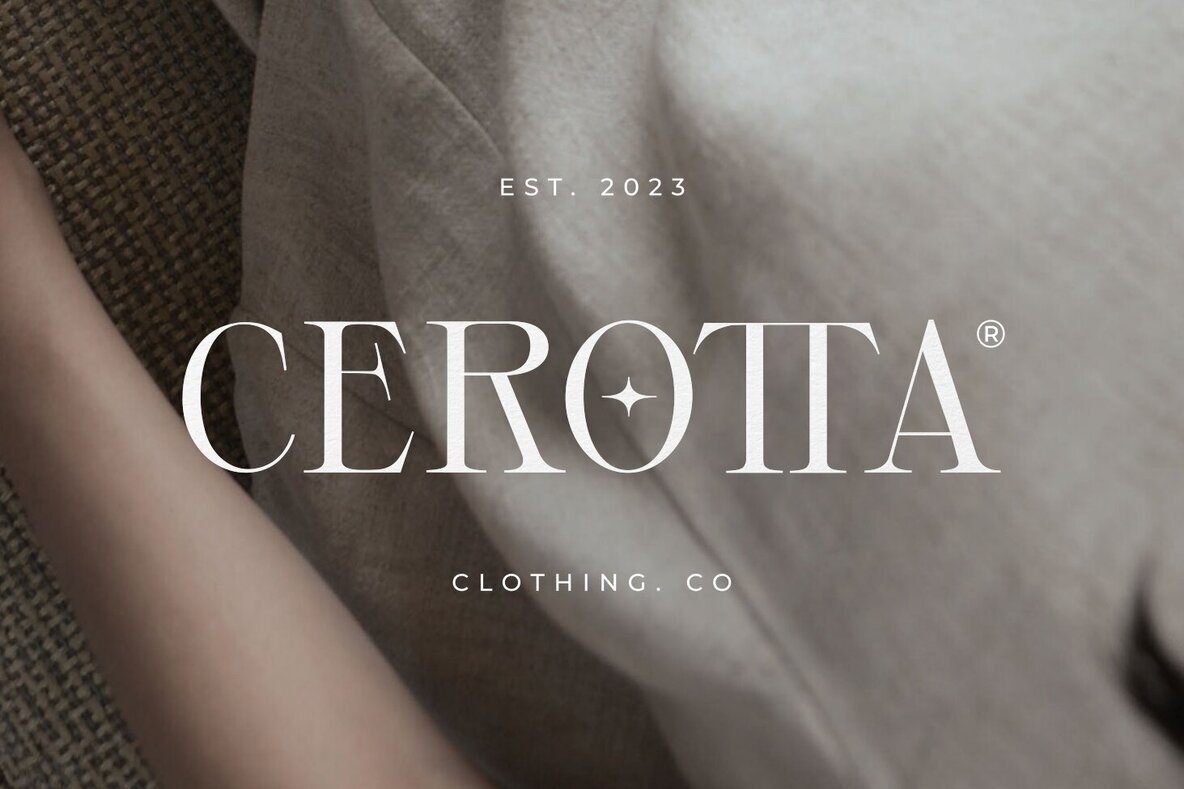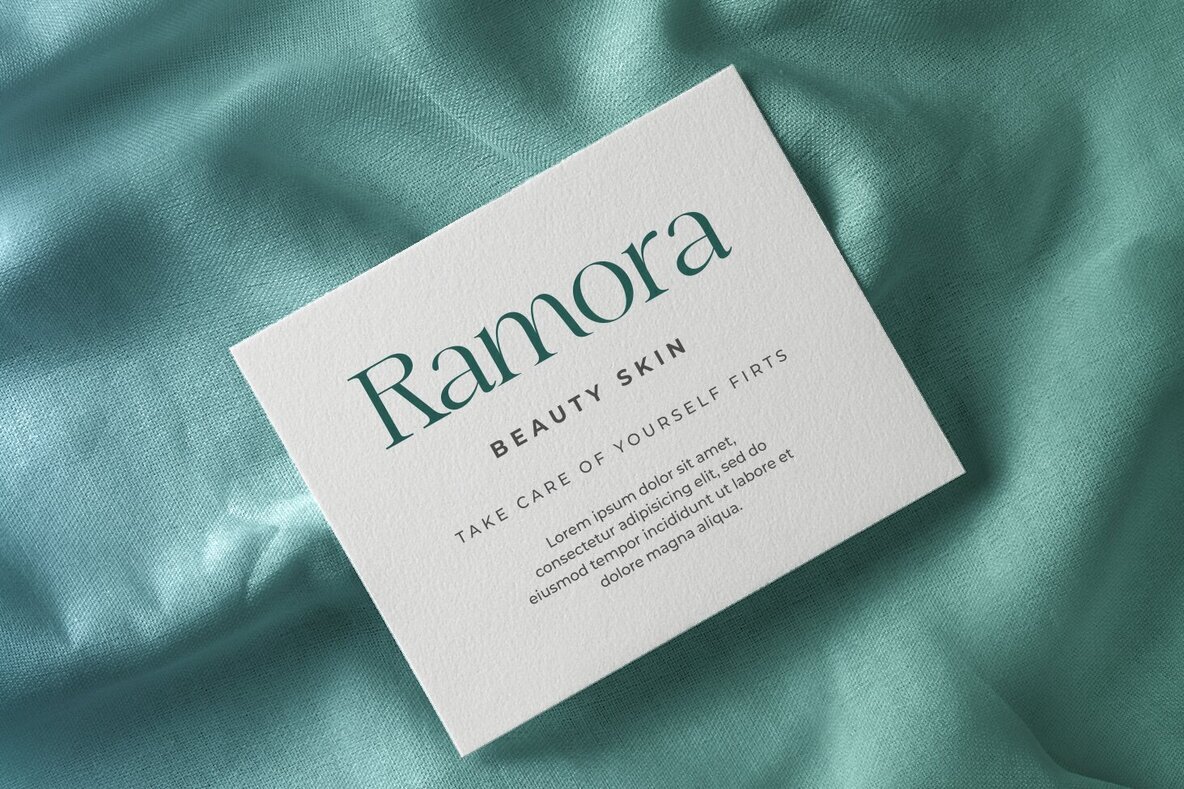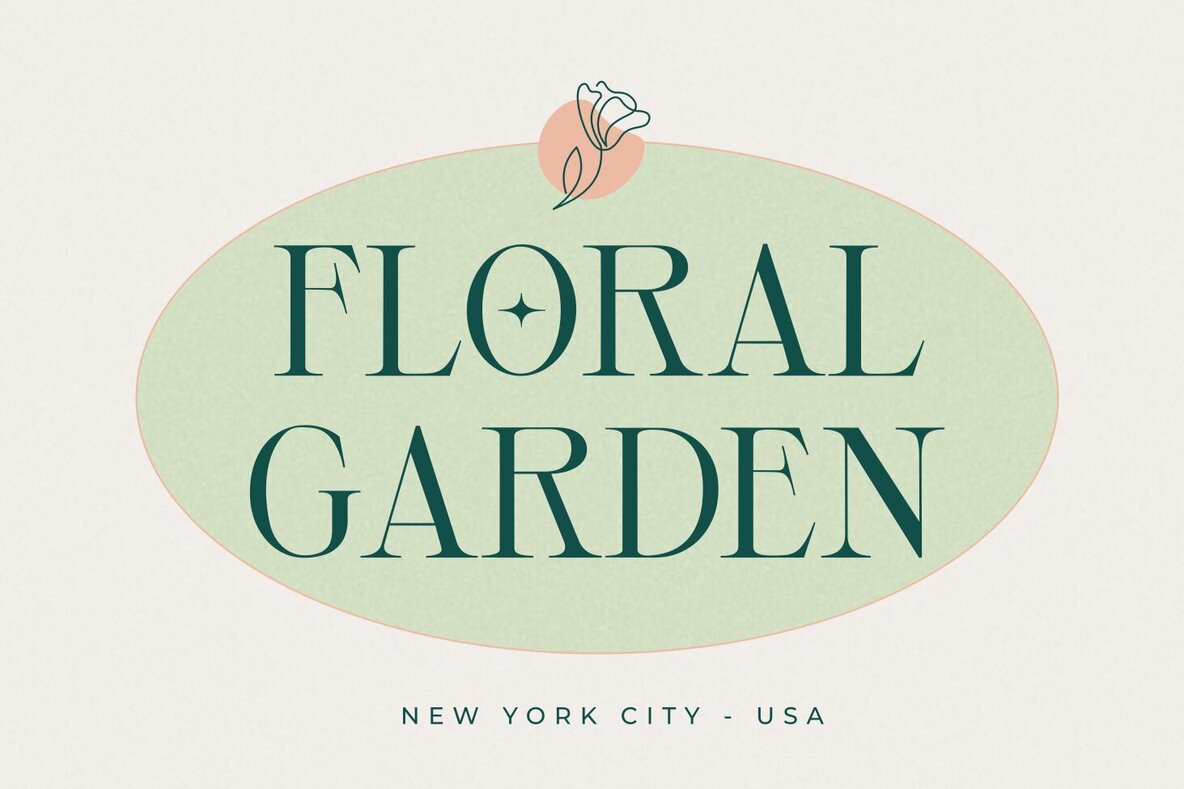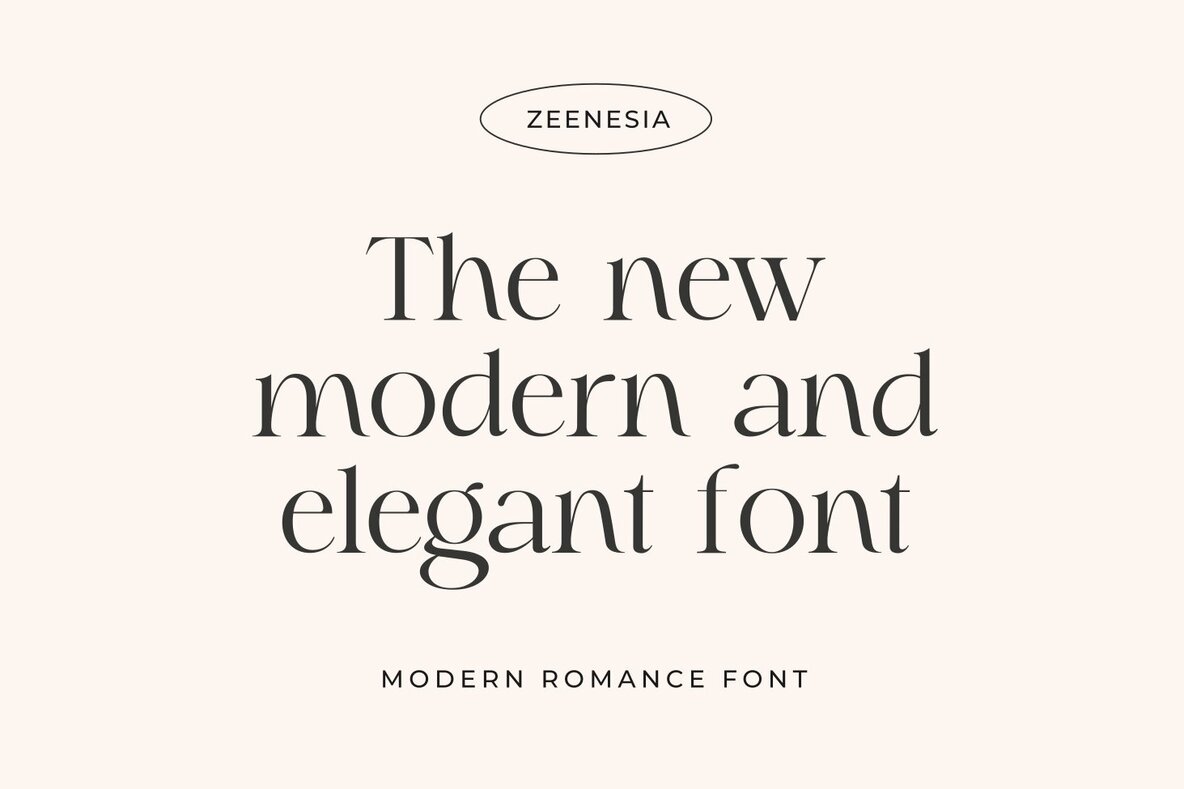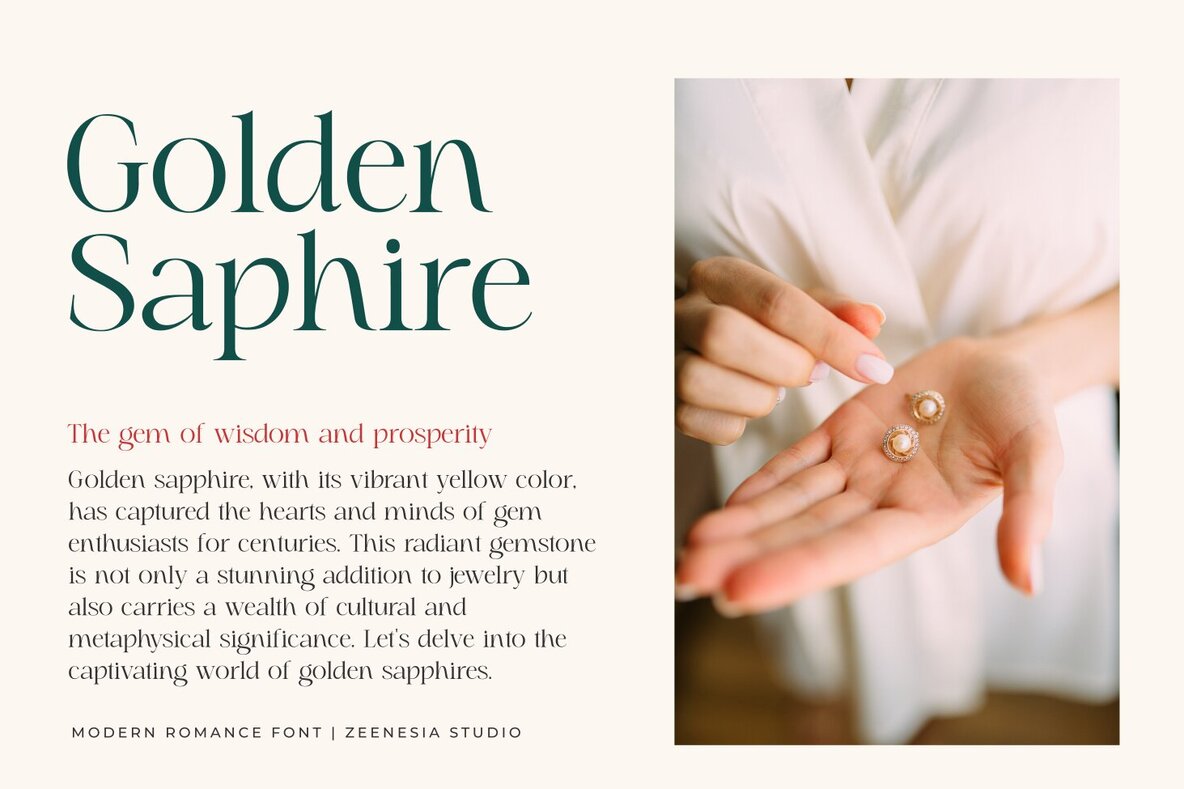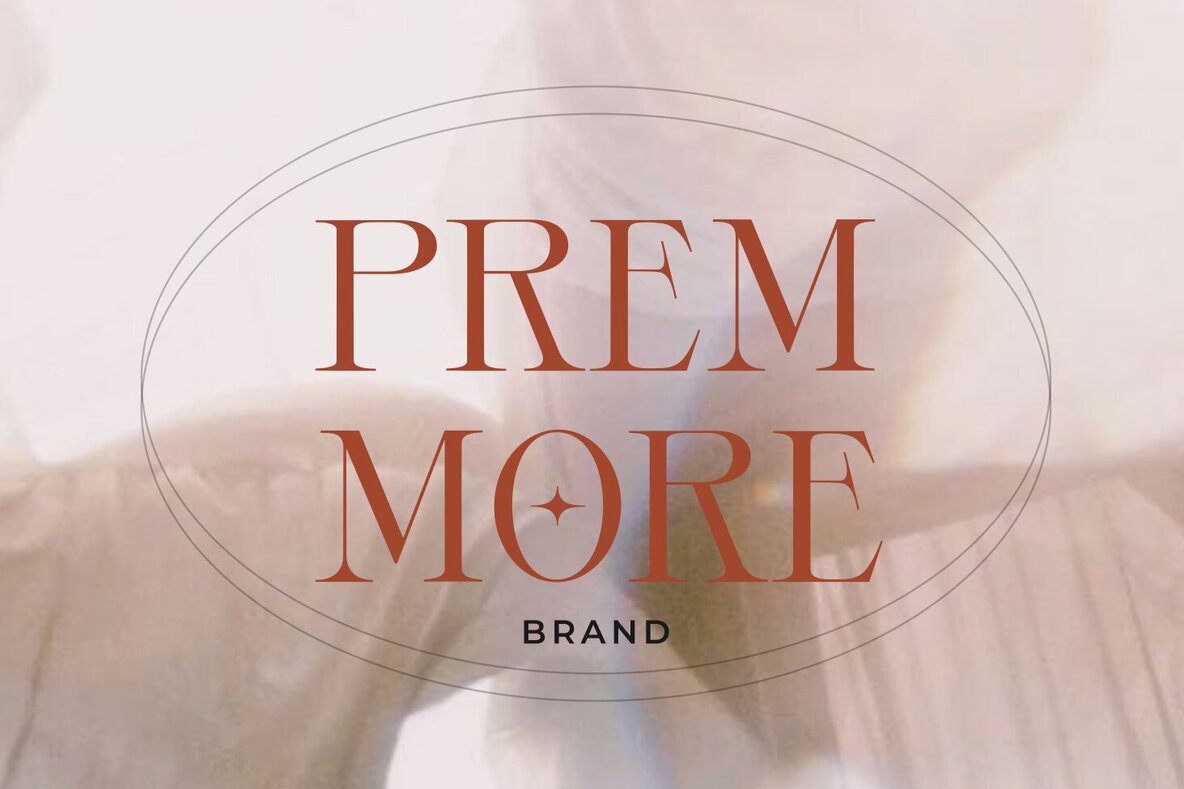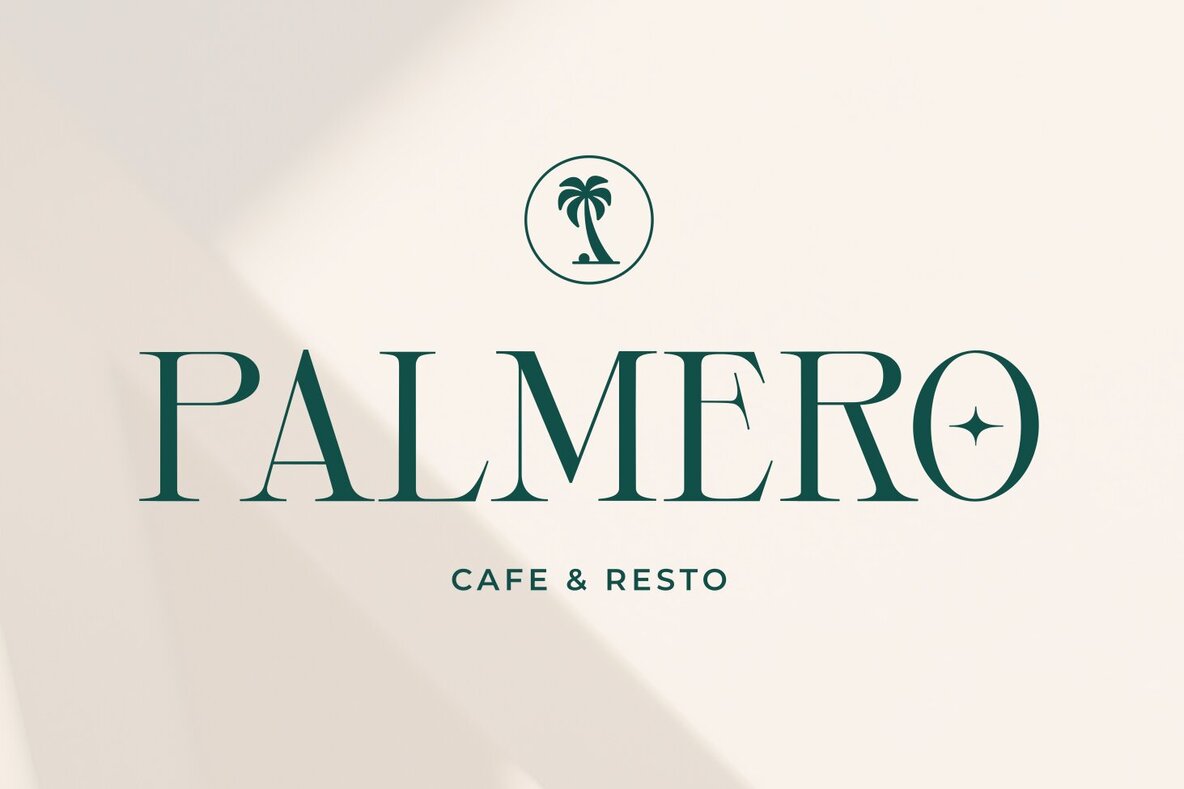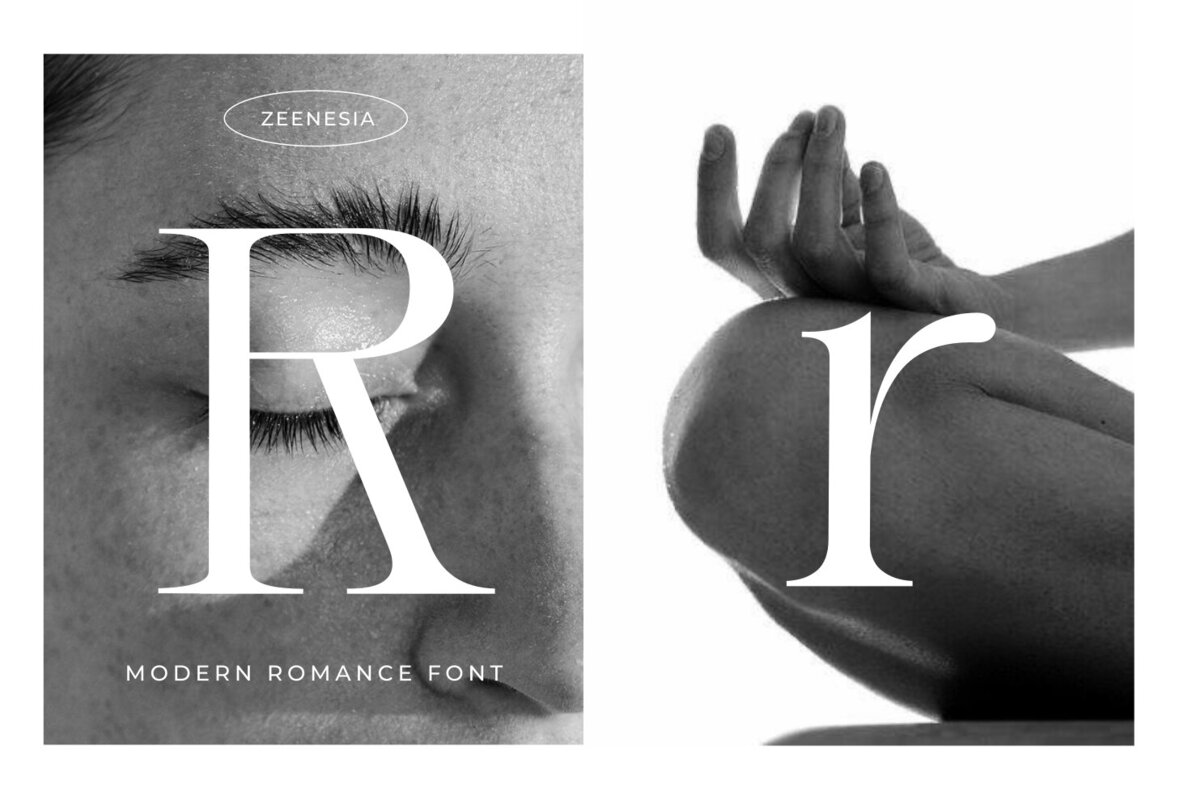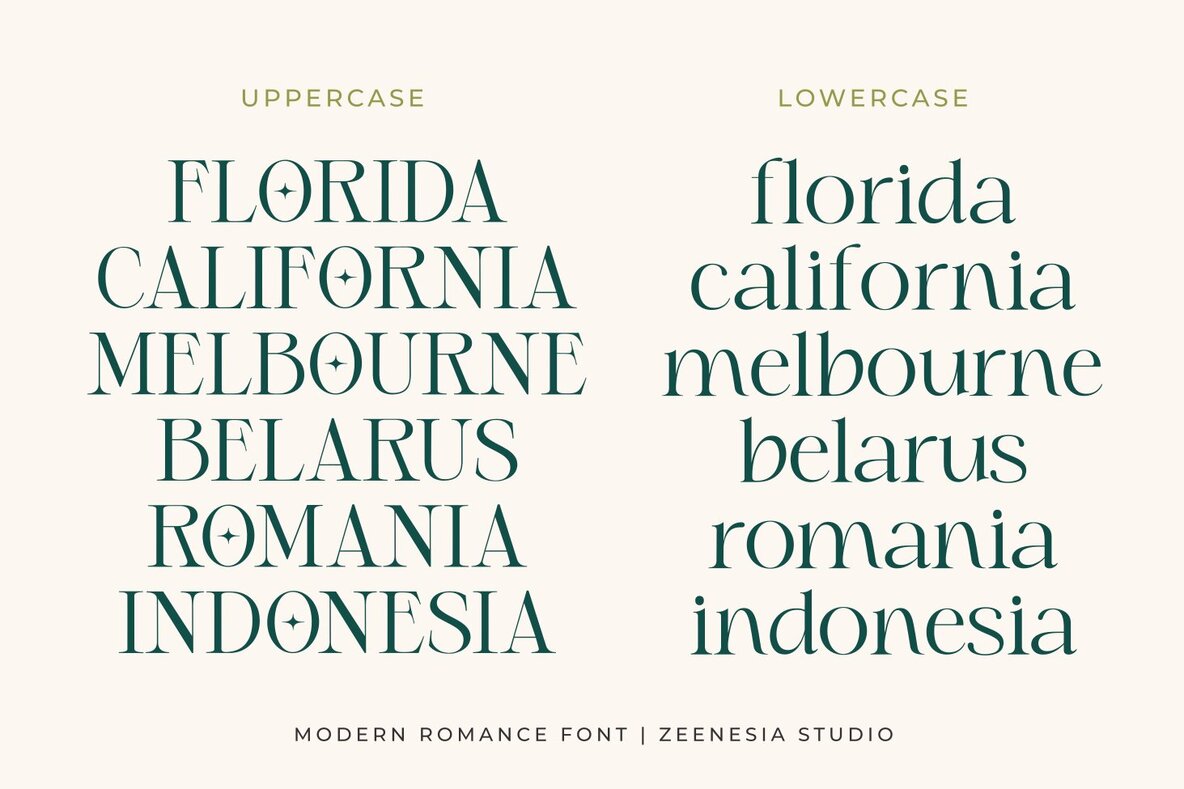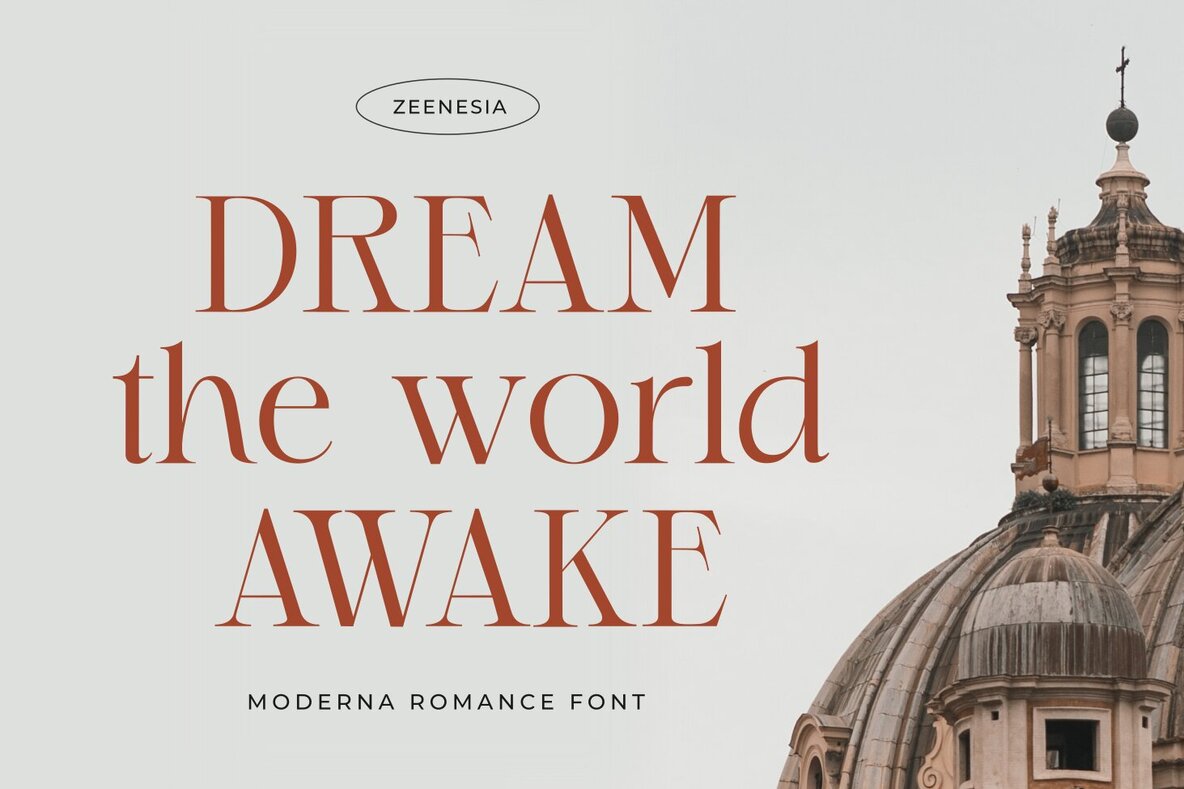
Modern Romance Font
Modern Romance Regular
Modern Romance by Zeenesia Studio is a stunning serif font that combines modern aesthetics with a romantic essence. Designed to add a touch of elegance to all your projects, Modern Romance's versatile qualities make it a perfect choice for any occasion. This font is exceptionally adaptable and works beautifully in a variety of contexts. Use it for business projects, digital designs, presentations, or creative pieces like greeting cards. Modern Romance is poised to become your go-to font.Modern Romance: Elegant Serif with a Romantic Flair